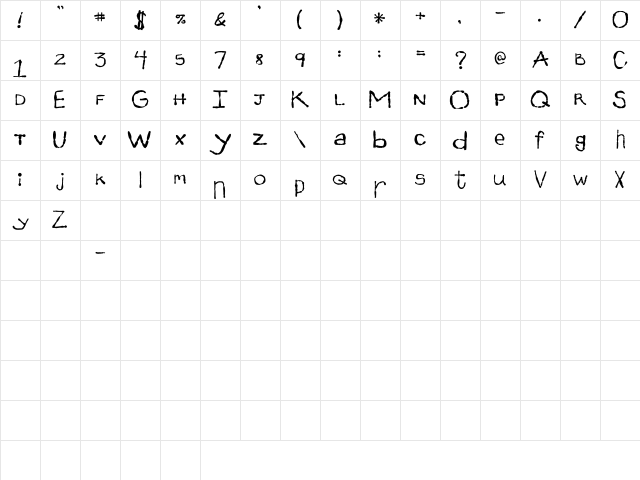
2Peas Amazing 2Peas Amazing Free Font
Foundry: Two Peas in a Bucket
Designer: designed by Melissa Baxter
Design Context for 2Peas Amazing
2Peas Amazing is a composed and adaptable typeface that performs quietly and consistently across a wide range of design contexts.
Who designed the 2Peas Amazing 2Peas Amazing font?